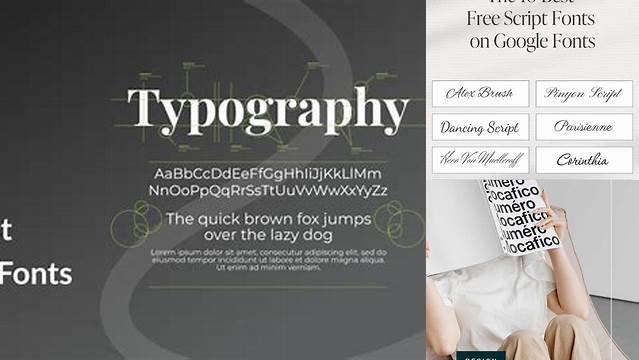
Charming Google Fonts: Best Picks For Your Projects
Hey guys! Ever feel like your design is missing that spark? A big part of that spark comes from your font choices. And lucky for us, Google Fonts is a treasure trove of amazing and totally free fonts. But with so many options, it can feel like searching for a needle in a haystack. That's why we've put together this guide to some of the cutest Google Fonts out there. Let's dive in and find the perfect font to make your project shine!
1. Playful & Whimsical Fonts
Looking for a font that screams fun? These playful and whimsical options are perfect for projects that need a touch of lightheartedness. When we talk about playful Google fonts, we're often thinking about fonts that have rounded edges, quirky letterforms, and a generally friendly vibe. Think about using these fonts for children's books, invitations, or even a website that wants to feel approachable and inviting. For example, you can use fonts like Bubblegum Sans or Luckiest Guy which immediately bring a smile to your face. But it's not just about the look; it’s about the feeling the font evokes. Choosing the right playful font can instantly inject personality and charm into your design. Remember, the best whimsical fonts are those that balance fun with readability. You don't want a font that's so quirky it's hard to read! So, keep it playful, but keep it practical too. When used correctly, playful fonts can be a powerful tool in your design arsenal, helping you to create visuals that are not only aesthetically pleasing but also emotionally engaging.
2. Elegant Script Fonts
For a touch of sophistication and grace, elegant script fonts are the way to go. These beautiful script fonts are perfect for adding a personal touch to invitations, logos, and headings. When you're looking for that touch of class, script fonts are often the answer. They mimic handwriting, giving a human and approachable feel while maintaining an air of elegance. But with so many script fonts available, how do you choose the right one? Think about the overall mood you're trying to create. Some script fonts are flowing and romantic, while others are more modern and minimalist. It's also important to consider readability. A beautiful script font is no good if no one can read it! Test it out in different sizes and contexts to make sure it remains legible. There is a huge array of choices for elegant Google fonts that can elevate the entire design. Examples like Pacifico or Great Vibes can add that touch of sophistication you are looking for. Using script fonts can be a great way to add personality and charm to your project, but remember to use them sparingly. Too much script can overwhelm the viewer, so use it wisely and let it shine where it matters most.
3. Cute Sans-Serif Fonts
Sans-serif fonts don't have those little 'feet' or serifs at the end of the strokes, giving them a clean and modern look. But that doesn't mean they can't be cute! Cute sans-serif fonts often have rounded edges or slightly condensed forms, which makes them feel friendly and approachable. They're perfect for body text, headlines, and even logos. Choosing the right sans-serif font can make a big difference in the overall feel of your design. Think about the message you're trying to convey. Do you want to come across as professional and trustworthy, or fun and playful? The font you choose can help you achieve that. When exploring Google fonts, consider some popular options like Nunito or Overpass. Nunito, with its rounded terminals, feels incredibly friendly and approachable, making it ideal for user interfaces or websites aimed at a younger audience. Overpass, on the other hand, maintains a modern and professional edge while still retaining a touch of warmth. Remember, the key to using sans-serif fonts effectively is to balance aesthetics with readability. A font might look cute, but if it's hard to read, it's not going to serve your purpose. So, always test your font in different sizes and contexts to make sure it remains legible and engaging.
4. Adorable Serif Fonts
Serif fonts, with their little strokes at the ends of the letters, often have a more traditional and formal feel. But don't let that fool you! There are plenty of adorable serif fonts out there that can add a touch of whimsy to your designs. Think about fonts with rounded serifs or slightly playful letterforms. These adorable fonts can bring a unique charm to your project. Finding the right serif font involves balancing tradition with personality. While serifs often evoke a sense of history and formality, modern iterations have softened these edges to offer a more approachable feel. To choose the right font from Google fonts, consider options such as Playfair Display, which, while elegant, has a certain playful sophistication, or Lora, which combines readability with a gentle, friendly appearance. When using serif fonts, think about the message you want to convey. Are you aiming for a classic and timeless look, or something a bit more modern and quirky? The right serif font can help you achieve your vision. Just remember to balance the font's aesthetic appeal with its readability, ensuring your message is both beautiful and clear.
5. Unique Display Fonts
Need a font that really stands out? Unique display fonts are designed to grab attention and make a statement. These fonts are perfect for headings, logos, and other prominent design elements. When it comes to making a statement, display fonts are your go-to choice. They're designed to be eye-catching and memorable, adding a distinct personality to your project. But with so many options available, it's crucial to choose a font that not only stands out but also aligns with your overall design aesthetic. Think about the feeling you want to evoke. Do you want to be bold and modern, or quirky and fun? Let’s say you need a modern and bold display font; consider exploring options like Bebas Neue or Montserrat. On the unique Google fonts side, something like Oswald combines classic proportions with a contemporary feel, making it versatile for various applications. These fonts are designed to be used sparingly, typically in headlines or logos, where they can have the most impact. Overusing a display font can make your design look cluttered and overwhelming. So, choose wisely and let your display font shine where it truly matters.
6. Modern Calligraphy Fonts
Combine the elegance of calligraphy with a modern twist! These fonts are perfect for invitations, cards, and anything that needs a personal and stylish touch. Modern calligraphy fonts bridge the gap between traditional handwriting and contemporary design. They offer the fluidity and grace of calligraphy but with a cleaner, more accessible aesthetic. These fonts are ideal for projects that need a touch of elegance and personality, such as wedding invitations, branding materials, or even website headers. When you're selecting calligraphy Google fonts, consider the occasion and the overall tone you want to set. A formal event might call for a more traditional script, while a casual project could benefit from a playful and whimsical style. When exploring your options, fonts like Allura and * শিখেছেন* provide beautiful options to add personality to any design. * শিখেছেন*, for instance, has a playful elegance that makes it ideal for invitations or branding, while Allura offers a more classic calligraphic feel. The key to using modern calligraphy fonts effectively is balance. Pair them with simpler fonts for body text to ensure readability, and use them sparingly to highlight key elements.
7. Retro & Vintage Fonts
Bring back the good old days with retro and vintage fonts! These fonts add a nostalgic feel to your designs, perfect for projects with a classic or historical theme. Retro Google fonts evoke a sense of nostalgia, drawing on design styles from past eras. These fonts can add character and charm to your projects, making them perfect for branding, posters, and anything that needs a vintage touch. To nail the retro aesthetic, you’ve got to consider the specific era you're trying to capture. Fonts like Playfair Display, while elegant, have a certain vintage flair that works well for projects aiming for a classic, timeless feel. When selecting vintage fonts, it's important to balance authenticity with readability. A font that’s too stylized might be difficult to read, especially in smaller sizes. Think about how the font will look in different contexts and make sure it remains legible. Using retro and vintage fonts effectively involves a bit of finesse. Pair them with complementary design elements and colors to create a cohesive look, and don't be afraid to experiment with different styles to find the perfect fit for your project.
8. Hand-Drawn Fonts
For a personal and informal touch, hand-drawn fonts are the way to go. They look like they were written by hand, adding a friendly and approachable feel to your designs. Hand-drawn fonts bring a personal and authentic touch to any design. They mimic the irregularities and imperfections of handwriting, making your project feel more human and approachable. These fonts are fantastic for invitations, logos, and designs that need a bit of warmth. When choosing hand-drawn Google fonts, consider the specific style of handwriting you want to emulate. Some fonts have a playful, whimsical feel, while others are more elegant and refined. Coming Soon is a popular option known for its casual, handwritten style, making it perfect for blogs or informal invitations. Rock Salt, with its rugged and quirky appearance, is ideal for designs that need a more edgy or artistic touch. When using hand-drawn fonts, think about the overall tone you want to convey. Pair them with simple, clean fonts for body text to maintain readability, and use them sparingly to highlight key elements. The goal is to add a touch of personality without sacrificing clarity.
9. Funky Groovy Fonts
Let your designs get their groove on with funky fonts! These fonts are bold, unique, and full of personality, perfect for eye-catching headlines and posters. If you're looking to inject some serious personality into your designs, funky Google fonts are the way to go. These fonts are bold, quirky, and full of character, making them perfect for headlines, posters, and anything that needs to grab attention. Funky fonts often feature unconventional letterforms, exaggerated shapes, and a general sense of playfulness. When selecting a funky font, it’s important to think about the overall vibe you want to create. Do you want your design to feel retro, futuristic, or simply offbeat? Choosing the right font can make all the difference. For instance, a font like Luckiest Guy brings a retro comic book feel, while something like Bangers has a bold, graffiti-inspired vibe. When using groovy fonts, it's crucial to use them sparingly. These fonts are designed to be attention-grabbing, so using them for large blocks of text can overwhelm the reader. Instead, use them for headlines or key words, and pair them with simpler fonts for body text. The goal is to make a statement without sacrificing readability.
30. Future Trends in Cute Fonts
Predict the upcoming trends in cute fonts and stay ahead in the world of typography. What's next for adorable fonts? As design trends evolve, so do the styles and preferences for fonts. Staying ahead of the curve in typography is essential for designers who want to create fresh, relevant, and visually appealing work. Future trends in fonts are particularly interesting when it comes to cute fonts, as these fonts often reflect the cultural and emotional nuances of the moment. Predicting future trends for Google fonts and other font types involves looking at broader design trends, technological advancements, and shifts in consumer preferences. One potential trend is the continued popularity of hand-drawn and handwritten fonts. These fonts add a personal and authentic touch, which resonates with audiences seeking genuine and relatable content. Expect to see more variations in this style, from elegant calligraphy to playful doodles. Another trend is the integration of variable fonts, which allow for greater flexibility and customization. Variable fonts can adapt to different weights, widths, and styles, making them ideal for responsive designs that need to look great across various devices. This could lead to more nuanced and expressive cute fonts. Rounded and geometric fonts are also likely to remain popular. These fonts have a clean, modern aesthetic that works well in a variety of contexts, and their friendly appearance aligns with the overall appeal of cute fonts. Expect to see these styles evolve with subtle variations and unique details that set them apart. Finally, the integration of 3D and animated fonts could become more prevalent, adding a dynamic and engaging element to designs. These fonts can create a sense of depth and movement, making them particularly effective for headlines and branding materials. By keeping an eye on these emerging trends, you can ensure that your designs remain current, captivating, and visually impactful.